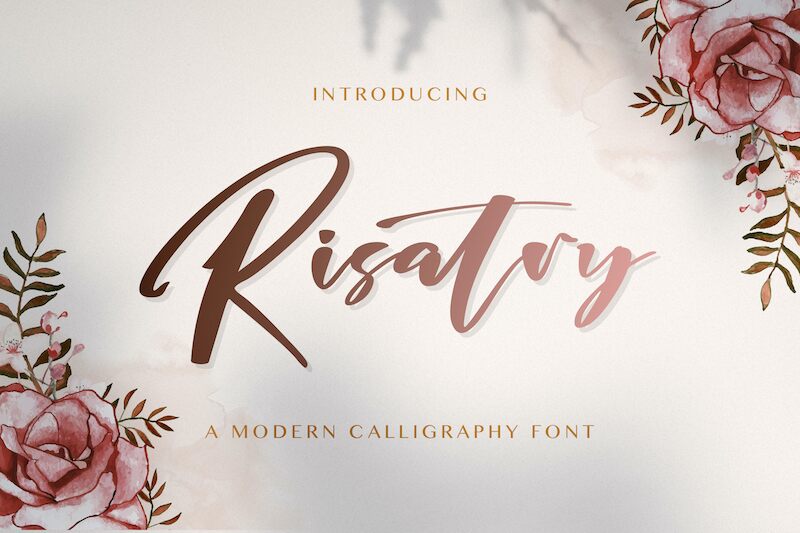
RISATRY
RISATRY is a stunning modern calligraphy font designed by StringLabs. With its elegant and flowing design, this font is perfect for a wide range of projects that require a touch of sophistication and creativity. The semi-bold typeface allows for legibility without sacrificing style, making it suitable for both print and digital media. The font's versatile width makes it ideal for everything from wedding invitations to social media graphics, while its unique style adds a touch of personality to any project. Whether you're designing an event poster or creating branding materials, RISATRY is the perfect choice for those seeking a modern and stylish aesthetic.